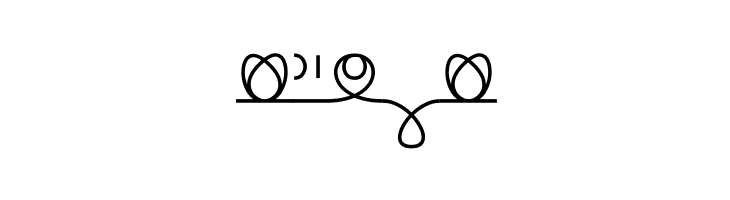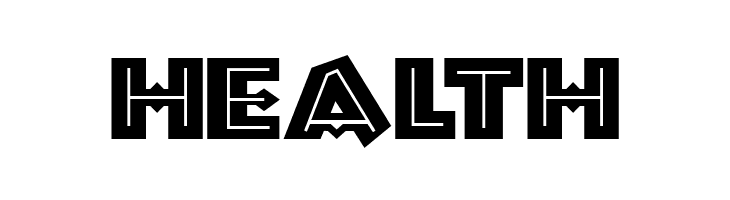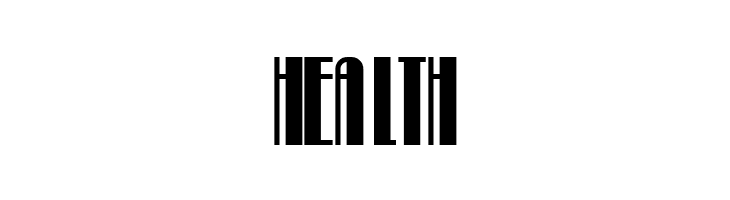
( Fonts by StringLabs )
A bold, geometric font with a layered outline style and modern aesthetic.
( Fonts by 177Studio )
A sleek, modern font with thin lines and a geometric structure.
( Fonts by P. Baudin )
A pixelated, grid-based font with a modern, digital aesthetic.
( Fonts by P. Baudin )
A decorative font with a cross-stitch pattern, offering a handcrafted and artistic look.
( Fonts by Bangun Bagustapa )
A geometric, bold font with a modern and structured design.
( Fonts by Hawtpixel )
A bold, italicized font with a spooky, Halloween-themed design.
( Fonts by Hawtpixel )
A bold, playful font with a spooky, Halloween-inspired design.
( Fonts by BlackFridayFont FMF )
Bold, rounded, playful display font with a bubbly, informal style.
Ornate calligraphic script with dramatic swashes and high contrast.
( Fonts by BlackFridayFont FMF )
( Fonts by Alpaprana Studio )